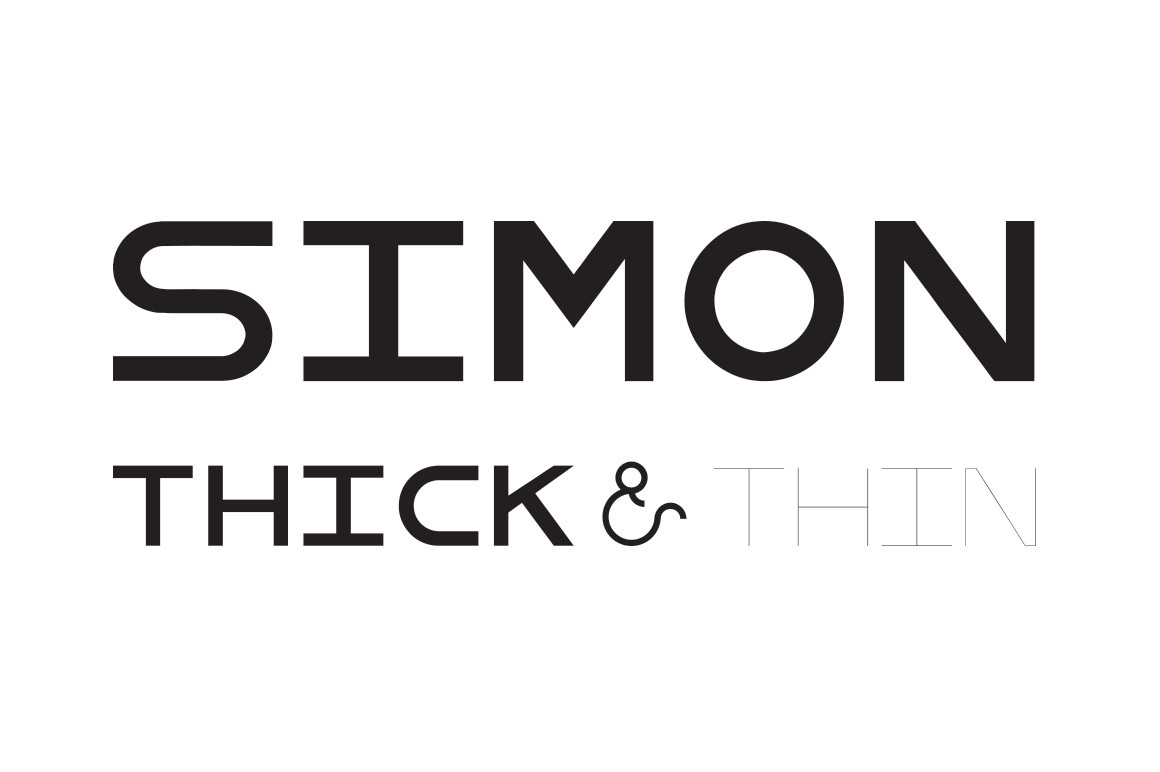
SIMON Thick & Thin Display Font
This font is created for a universal display use. It can be used many ways and contain a modern stylistic integrity. The font contains thick and thin for contrast in display. The possibilities are endless with this font.